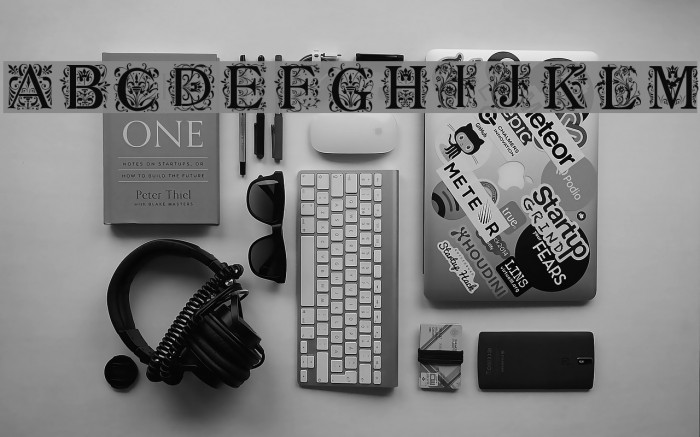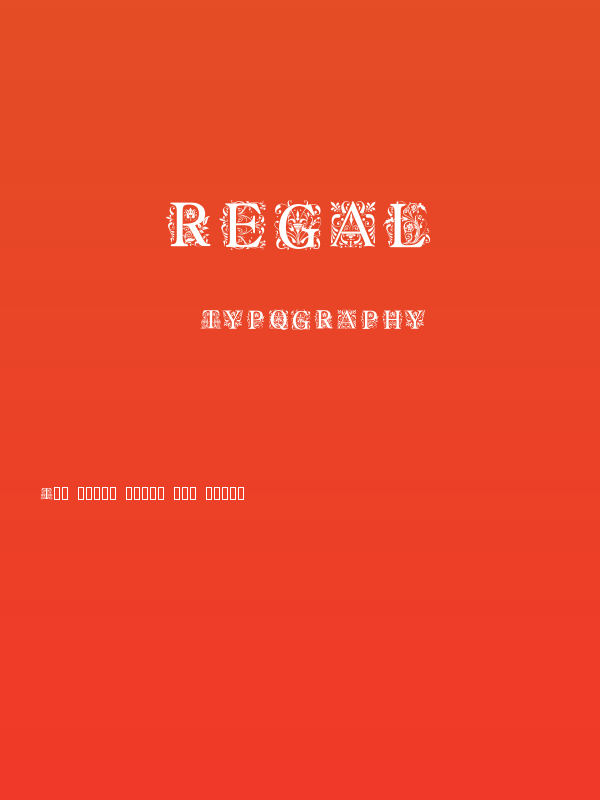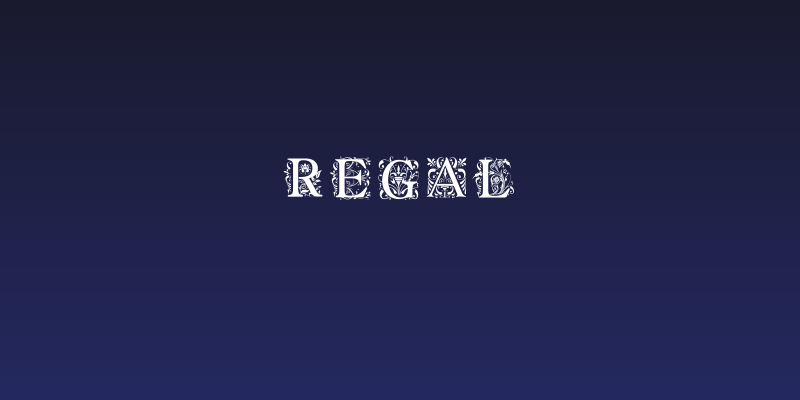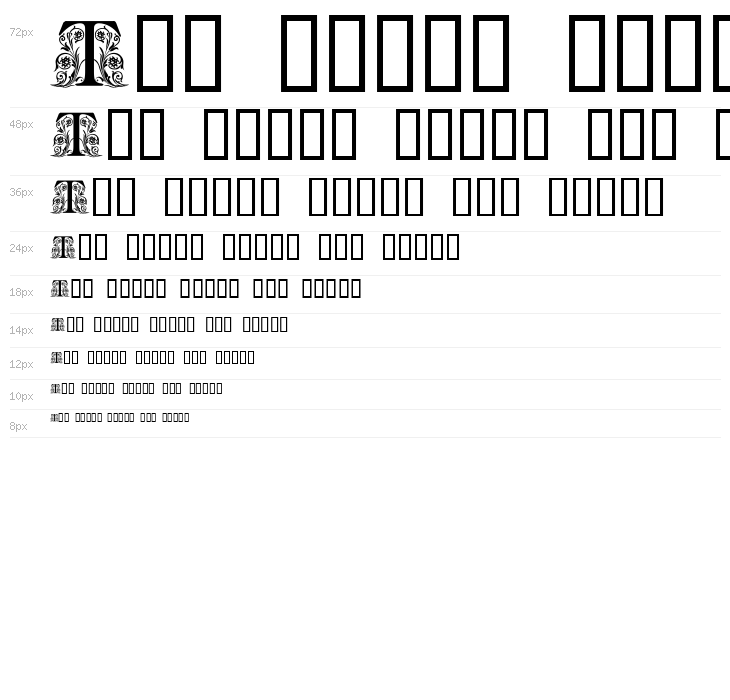
Regal Font
Regal Description
This font features an ornate and decorative style, characterized by intricate floral and vine-like embellishments that intertwine with each letter. The uppercase letters are bold and commanding, each adorned with unique, detailed patterns that evoke a sense of elegance and sophistication. The overall design is reminiscent of vintage or Victorian aesthetics, making it ideal for projects that require a touch of grandeur and opulence. The font's intricate details demand attention, making it suitable for headlines or titles where the text needs to stand out. Despite its decorative nature, the characters maintain a clear and readable form, ensuring that the text remains legible even with the elaborate designs.
| Proposed Projects | Ideal for wedding invitations, luxury branding, vintage-themed posters, and decorative book covers. |